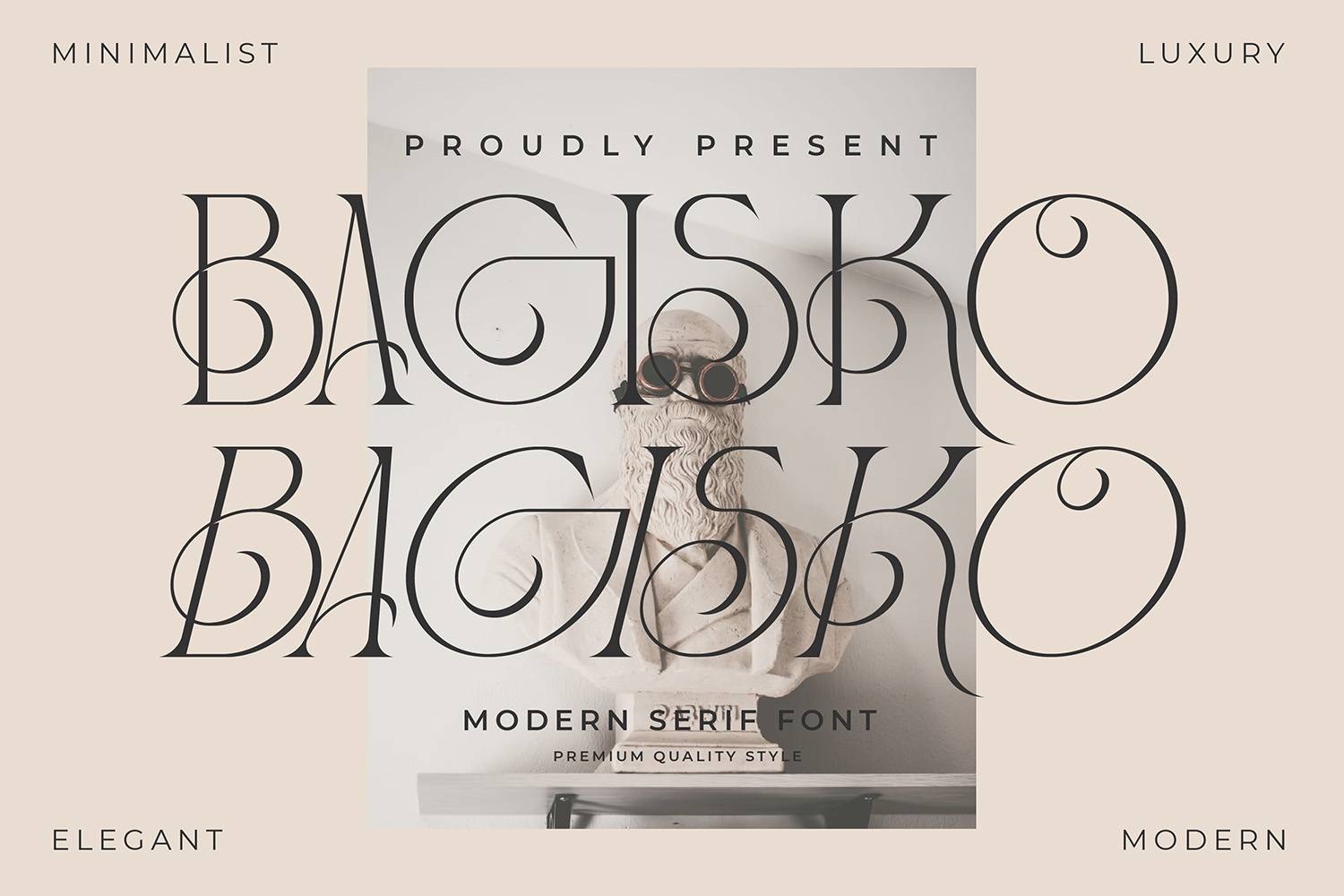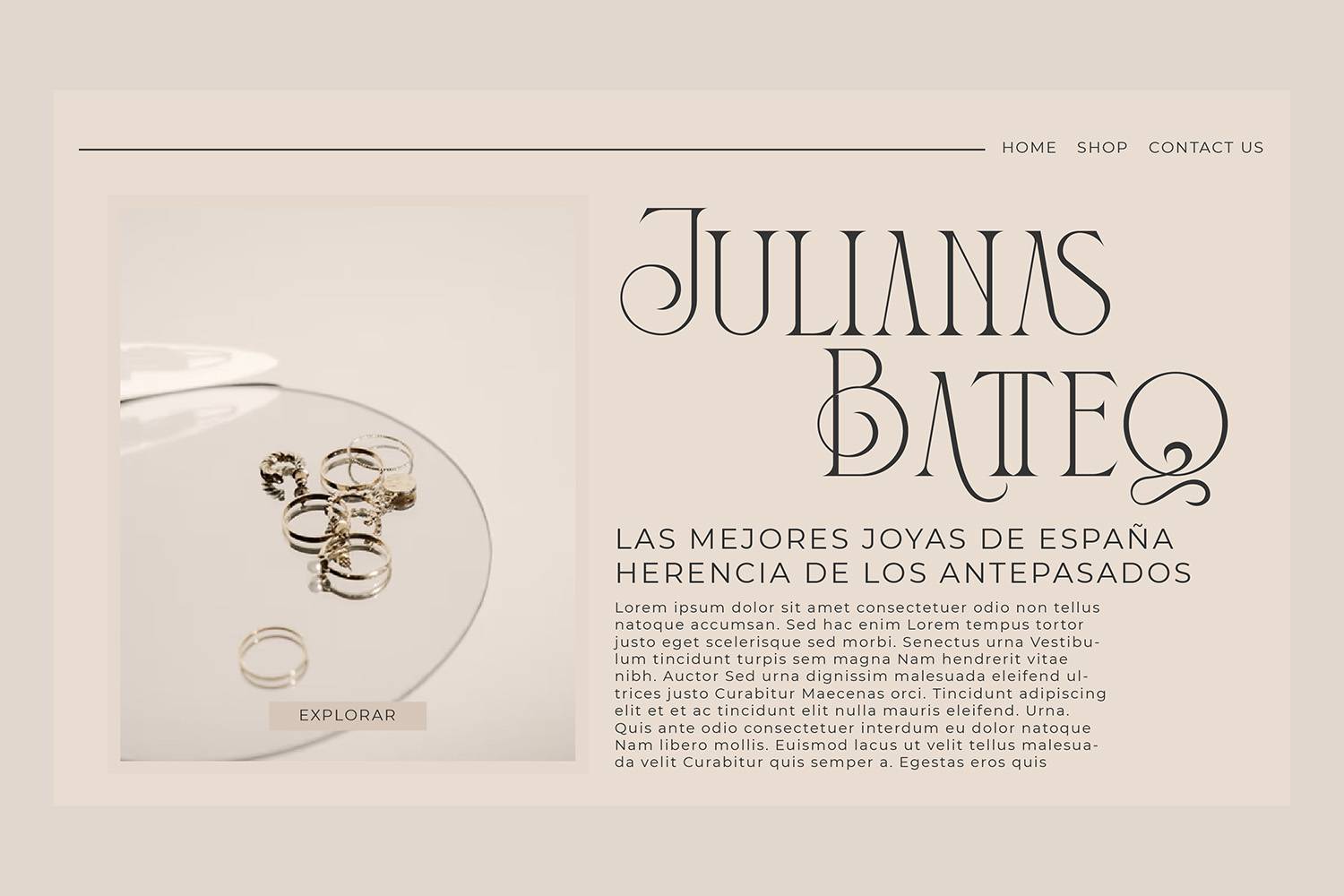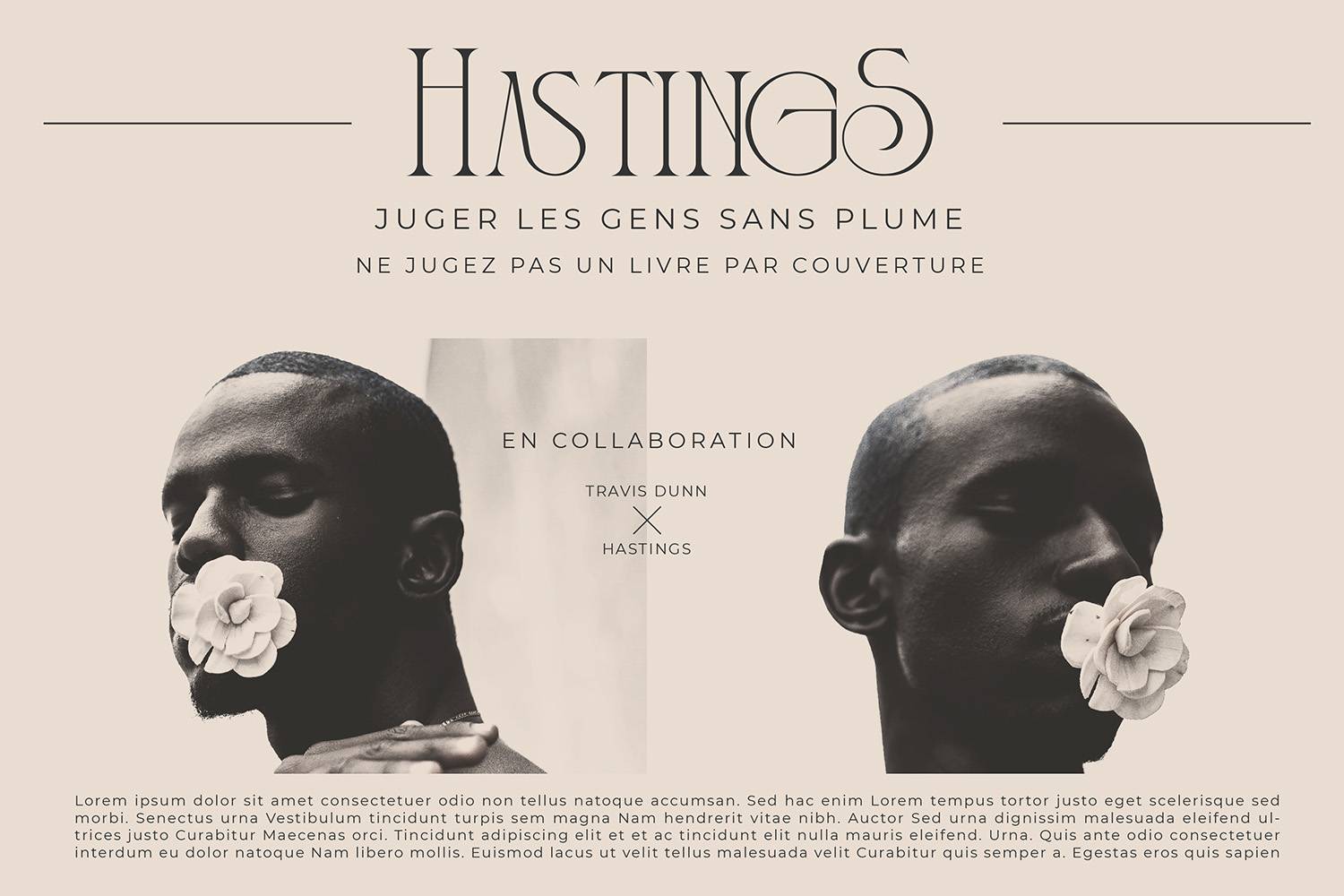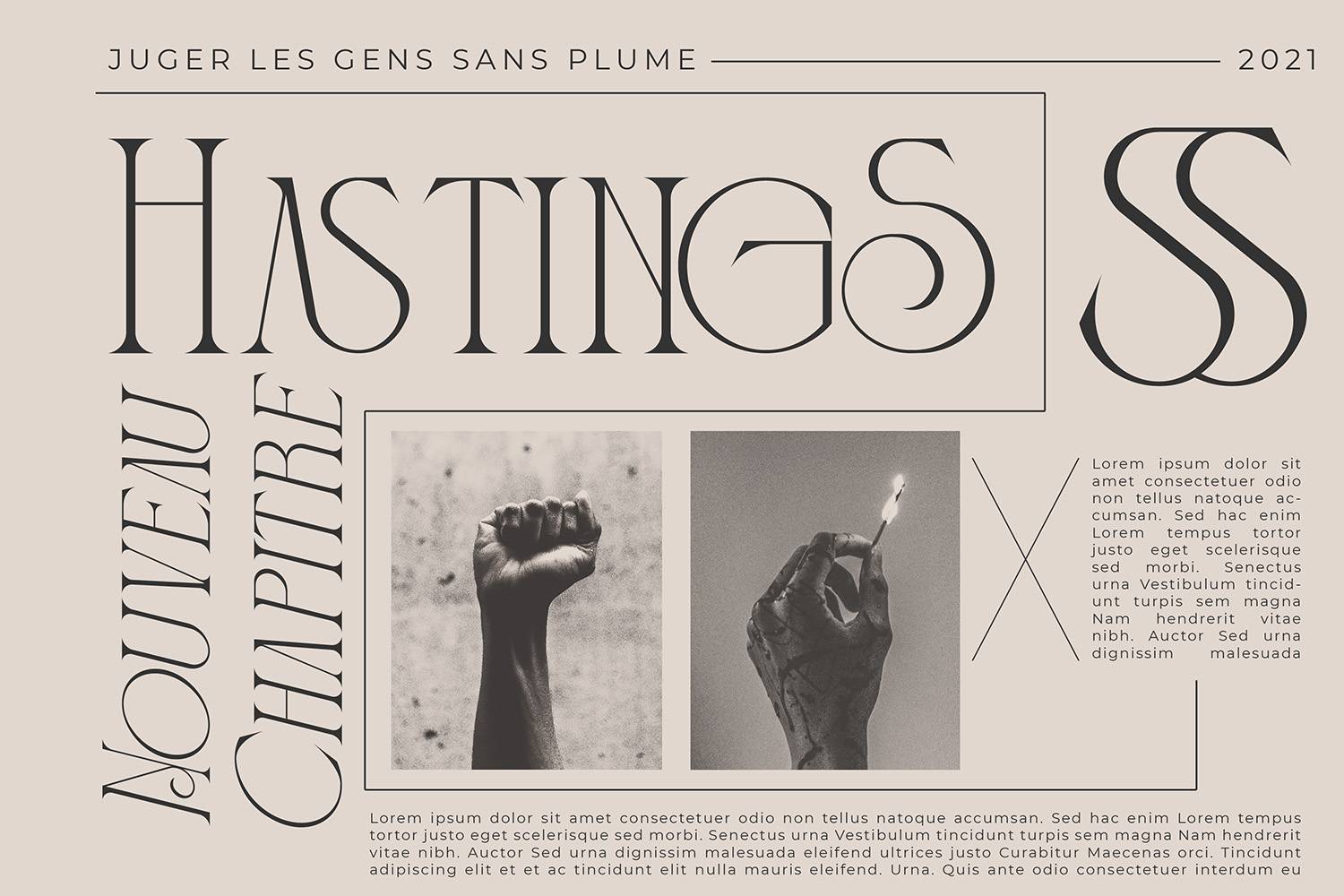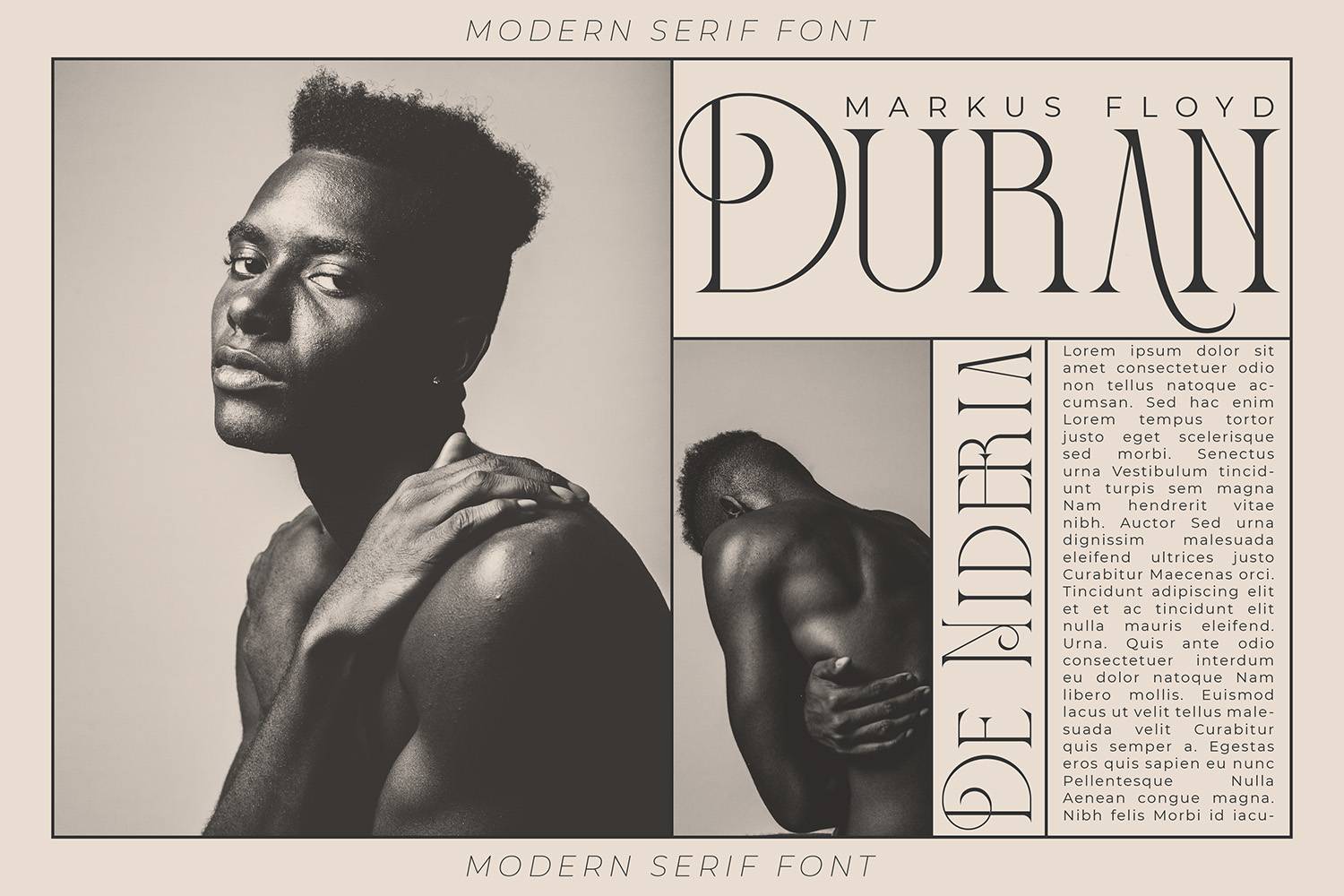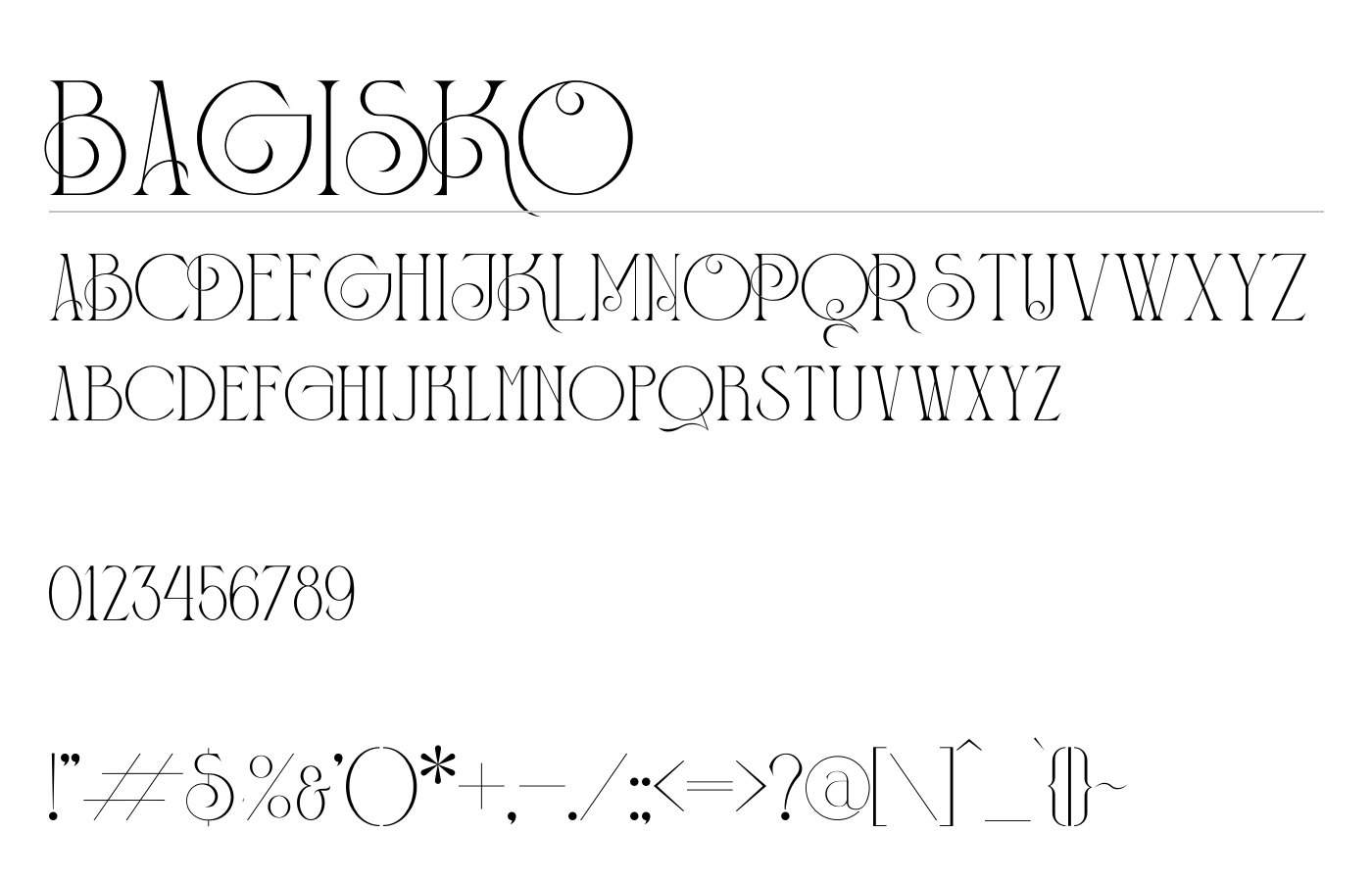
Bagisko is an elegant serif font featuring a delicate, high-contrast design with fine, thin strokes and artistic swirls that give it a sophisticated, decorative flair. Its tall x-height and slender letterforms create a refined and stylish look, making it ideal for luxury branding, high-end editorial work, and decorative headlines where a touch of elegance and uniqueness is desired.
Bagisko Font
About Bagisko Font